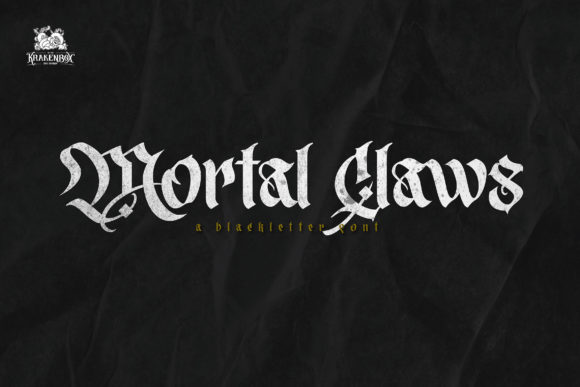
Welcome to the realm of Mortal Claws, an enigmatic blackletter font that beckons you to embrace the essence of rebellion, courage, and originality. Immerse yourself in its captivating glyphs, handcrafted with meticulous precision to evoke a sense of fearlessness and determination. Mortal Claws is not just a collection of letters and characters; it's a gateway to a world of limitless creative possibilities.
Imagine your designs adorned with the mesmerizing curves and bold strokes of Mortal Claws, capturing the attention of your audience like a magnetic force. Whether you're a fearless fashion designer, a visionary artist, or a daring entrepreneur, Mortal Claws is your weapon of choice to leave an indelible mark on the world.
Step out of the ordinary and embrace the power of Mortal Claws. Its unique style, reminiscent of ancient runes and brave inscriptions, will add an aura of mystery and intrigue to your projects. From fashion and apparel ventures to album covers, logos, branding, and even social media posts, Mortal Claws will cast a spell of enchantment.
With Mortal Claws, you're not just downloading a font; you're unlocking a portal to a world of boundless creativity. The font's adaptability knows no bounds, seamlessly blending with various design aesthetics, whether you seek a contemporary edge or a timeless classic look.
The creators of Mortal Claws, the brilliant minds at Krakenboxstudio, have infused this font with a rare alchemy of elegance and edginess. Its meticulously crafted characters dance in perfect harmony, beckoning you to weave captivating tales and create designs that resonate with power and beauty.
Join the ranks of those who dare to be different, those who embrace the unconventional and forge their own path. Let Mortal Claws be your secret weapon, the catalyst for your creative revolution. Dare to stand out, dare to be remembered, dare to make your mark with Mortal Claws. Seize the opportunity to own this exceptional font today and unleash the boundless potential within you.